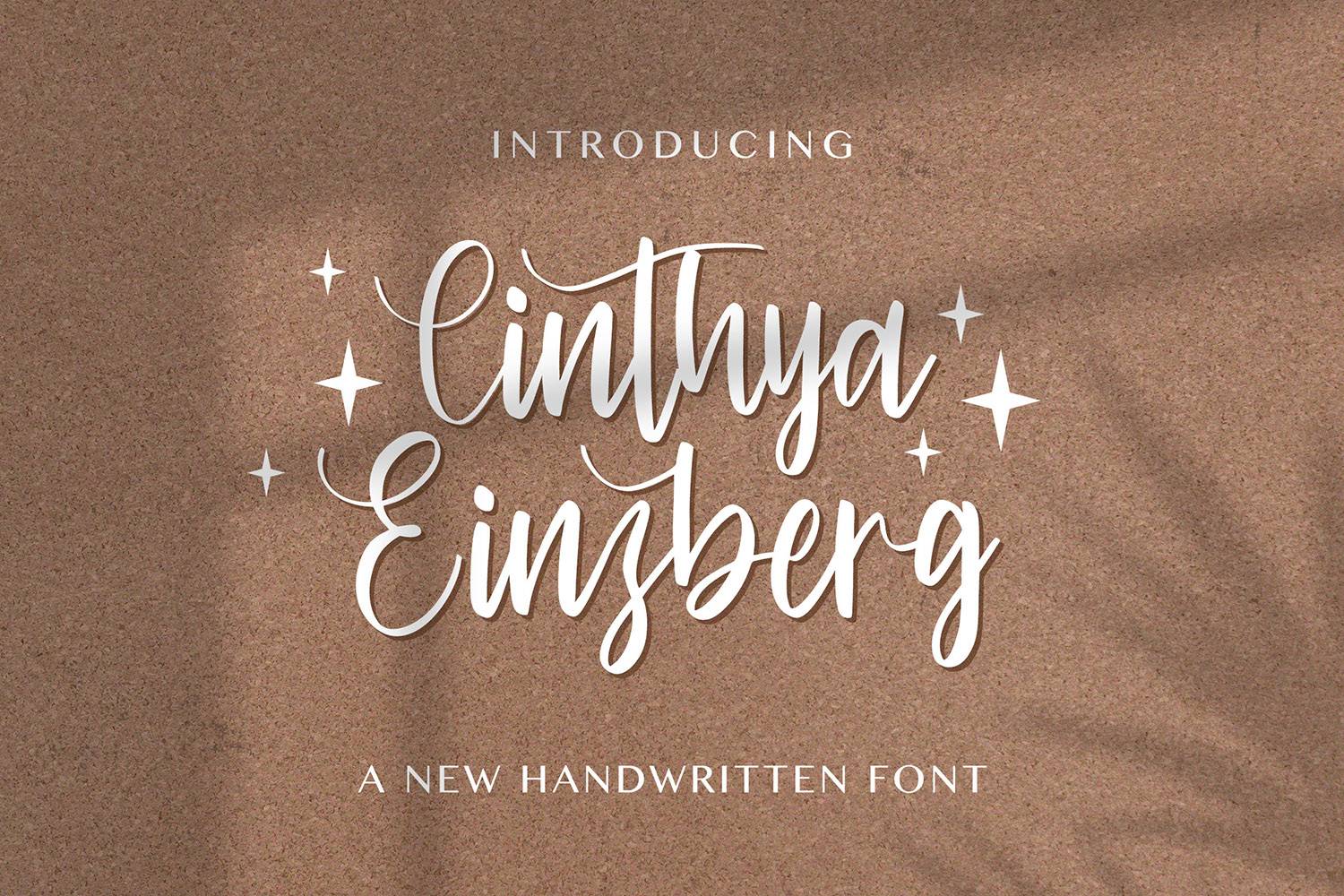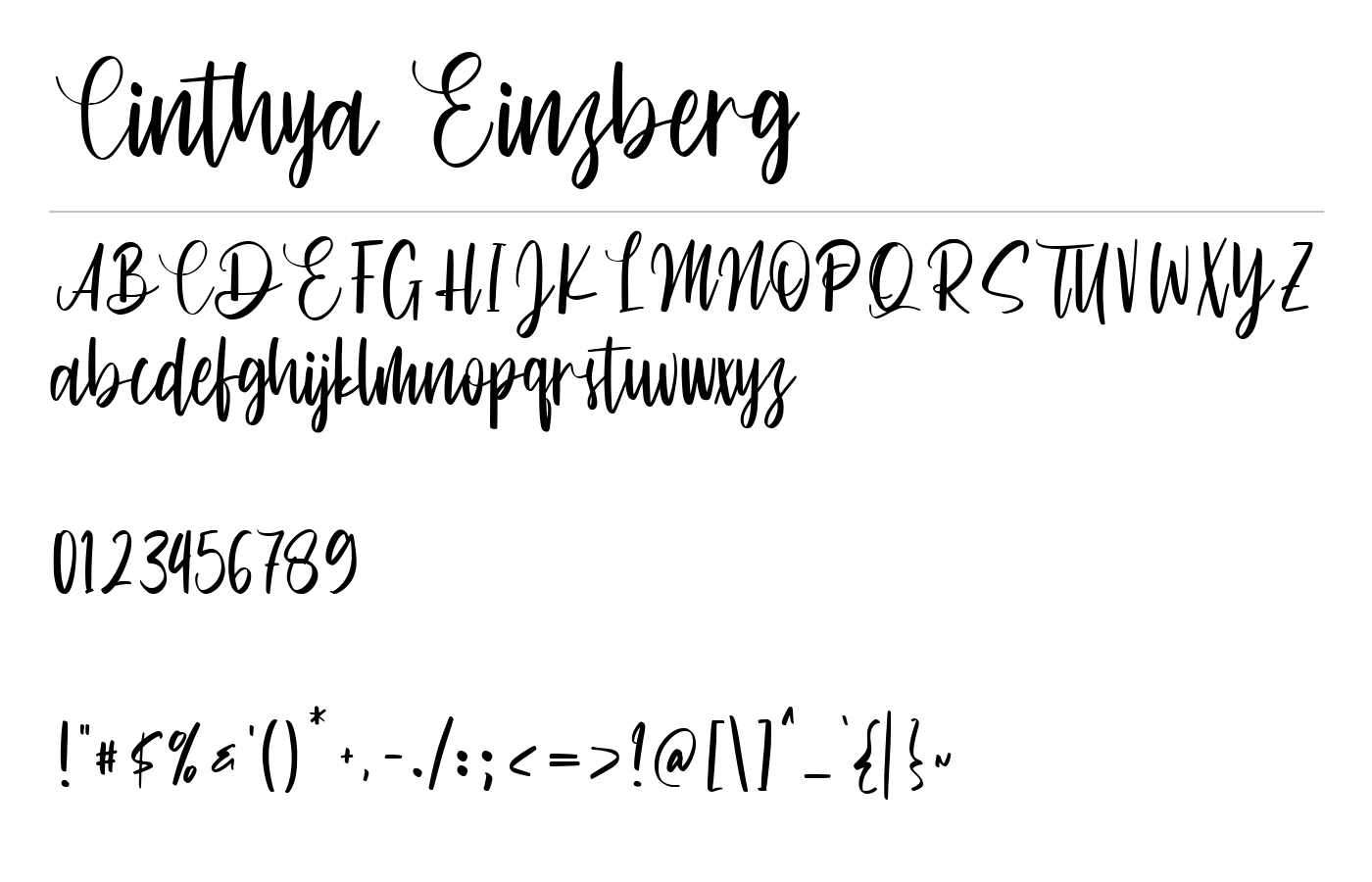
Cinthya Einzberg is an elegant, handwritten script font with a casual yet refined feel, featuring smooth, flowing strokes and a lively, playful rhythm. Its tall, slightly condensed letterforms and charming, varied character shapes make it perfect for adding a personal, stylish touch to invitations, branding, and editorial designs that call for a warm and approachable aesthetic. This font works beautifully in headlines, logos, and creative projects where a unique, handcrafted look is desired.
Cinthya Einzberg Font
About Cinthya Einzberg Font
| Font family | Cinthya Einzberg Font |
| Release date | 2020-06-28 |
| Designer | StringLabs |